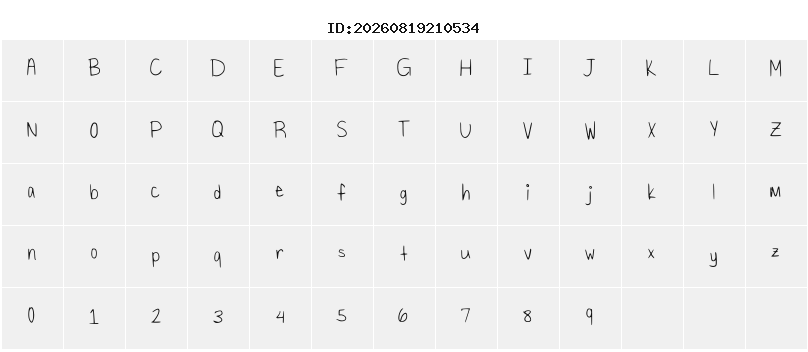
ShavedIce Preview
• Font Name: ShavedIce
• Full Font Name: ShavedIce
• PostScript Name: ShavedIce
About ShavedIce.ttf
ShavedIce.ttf is a modern, elegant sans-serif font designed for ultimate readability and visual harmony. Perfect for branding, headlines, web design, and print materials.